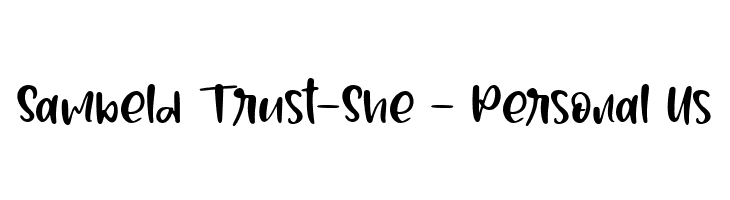
A bold, playful script font with a handwritten style.
A bold, handwritten script font with a lively and fluid style.
A bold, cursive script font with elegant loops and swashes.
A playful and elegant script font with flowing, cursive letterforms.
A cursive font with elegant, flowing strokes and artistic style.
A modern, elegant script font with flowing, interconnected letters.
A modern, handwritten script with a casual and flowing style.
A playful and elegant script font with flowing, interconnected letterforms.
A bold, dynamic script font with elegant slanted uppercase and smooth flowing lowercase letters.